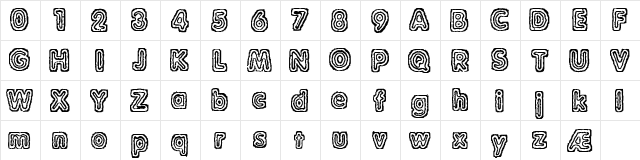
Raydiate (BRK) Regular
Design Context for Raydiate (BRK) Typeface
Raydiate (BRK) is a composed and adaptable typeface that performs quietly and consistently across a wide range of design contexts.